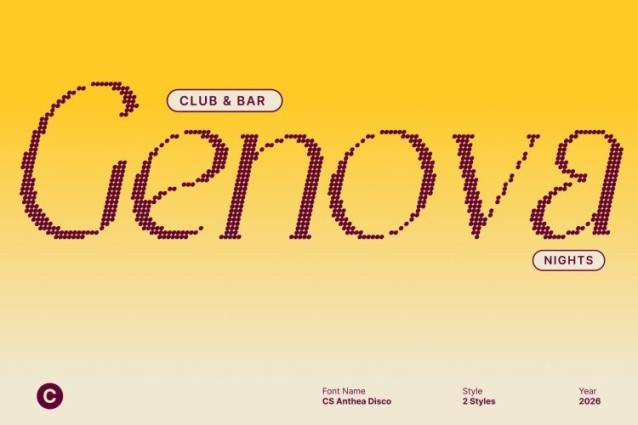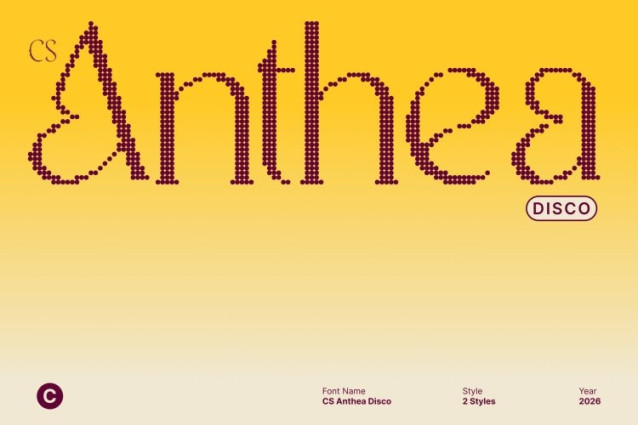
CS Anthea Disco Font
CS Anthea Disco Font This is an elegant serif font crafted to deliver refined luxury with a subtle disco glow. Built on classic serif foundations and elevated with modern, celebratory nuance, it brings timeless sophistication into a vibrant contemporary mood like high fashion illuminated by soft, shimmering lights.
Refined Curves with Luminous Detail
The beauty of this font lies in its graceful curves and perfectly balanced proportions. Each letterform flows with smooth transitions and polished serifs, enhanced by a gentle sense of movement that feels rhythmic and alive. These elegant details add depth and radiance, creating a typeface that feels exclusive, confident, and effortlessly glamorous.
Classic Heritage with a Festive Modern Twist
Blending traditional serif elegance with modern refinement and disco-inspired attitude, this font feels both timeless and fresh. Its classic influence ensures authority and readability, while its contemporary flair introduces energy, charm, and visual sparkle making it ideal for designs that want luxury without stiffness.
Perfect for Editorials, Fashion, and Premium Branding
Designed for upscale and expressive applications, this font shines in editorial layouts, fashion campaigns, luxury branding, packaging, and statement typography. Its refined serif structure elevates headlines, body text, and logos with sophistication, confidence, and a subtle sense of celebration elegant by nature, radiant by night.